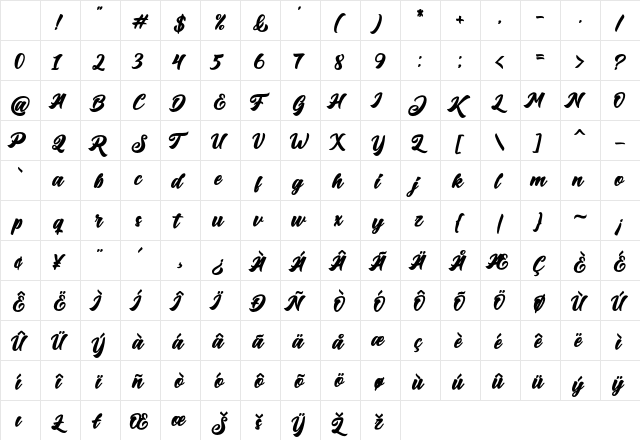
Complete Big Blue Bold glyph index. Displaying only characters natively supported by Big Blue Bold font.
Big Blue is a composed and adaptable typeface that performs quietly and consistently across a wide range of design contexts. Its bold stroke weight gives it real presence on the page.